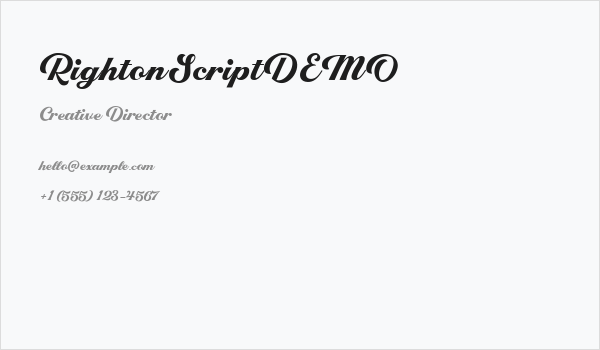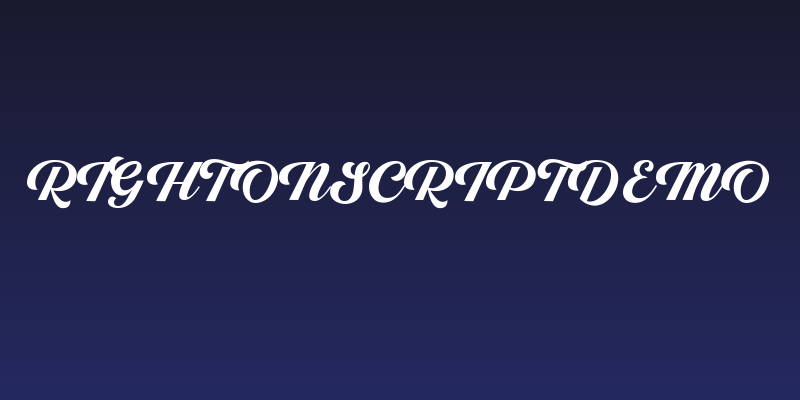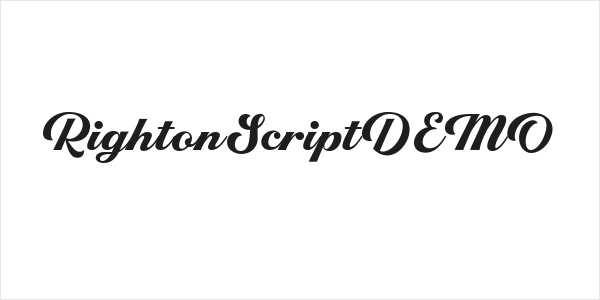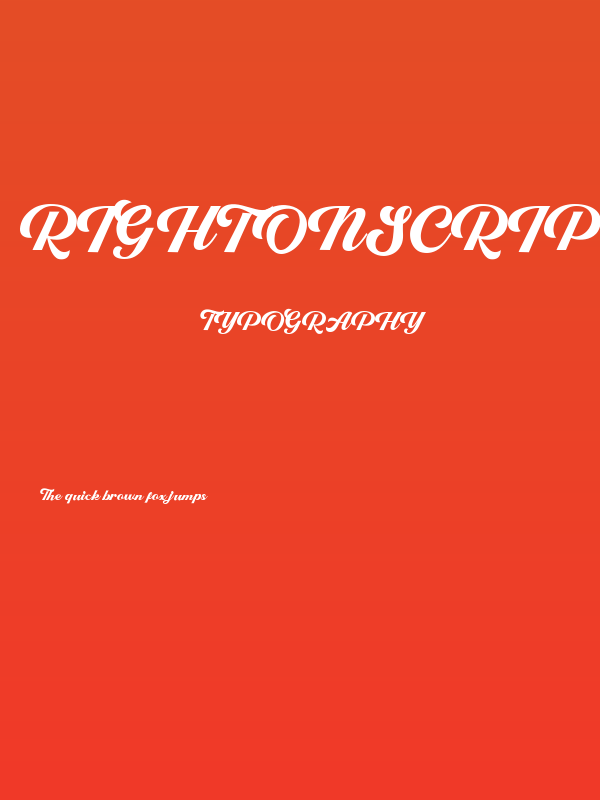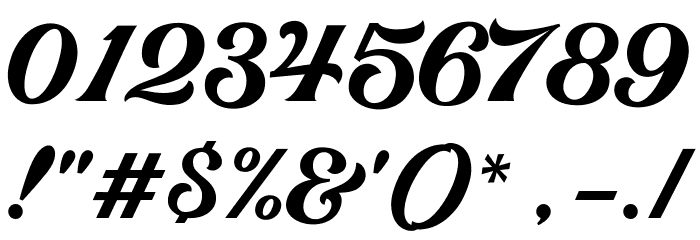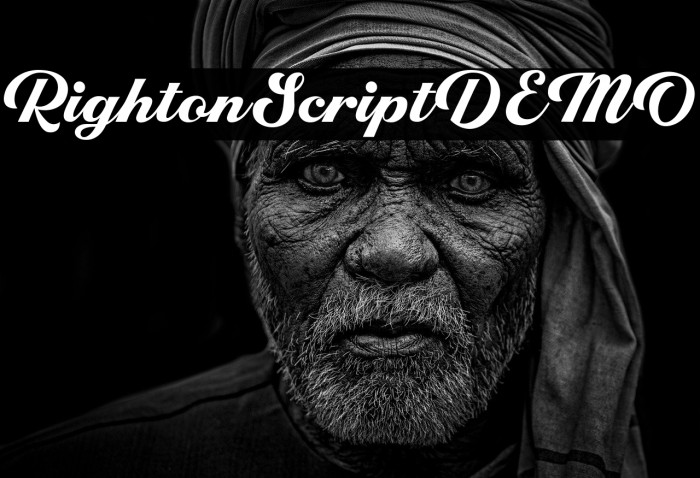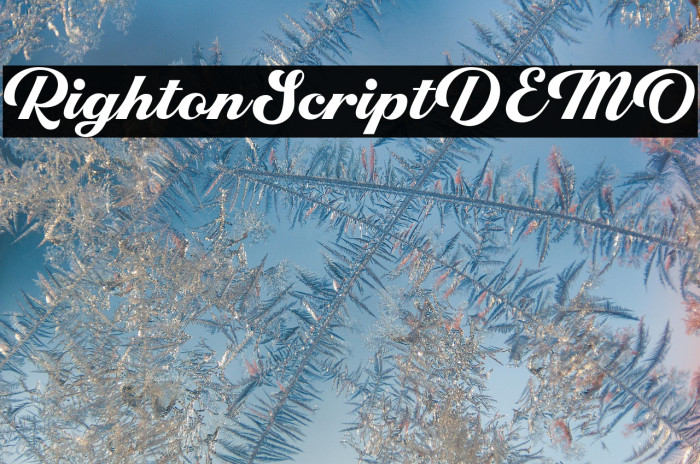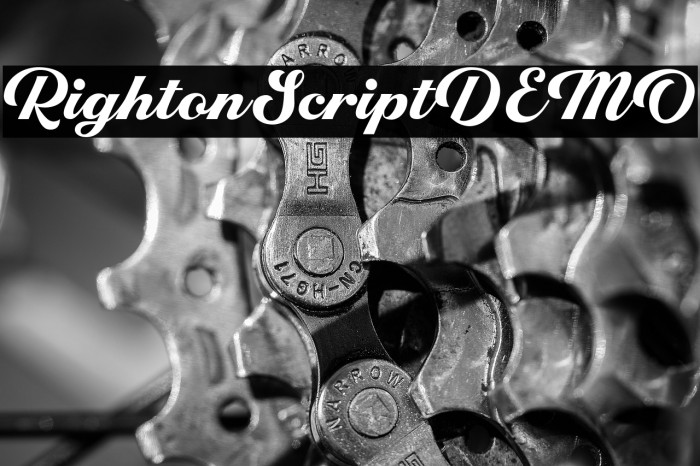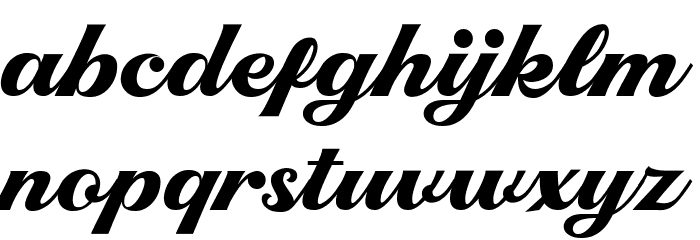
RightonScriptDEMO Font
RightonScriptDEMO Description
This font exudes a classic and elegant script style, characterized by its flowing and connected letterforms. The uppercase letters are bold and sweeping, with a sense of grandeur and sophistication. The lowercase letters maintain a consistent slant, enhancing the cursive appearance and providing a smooth reading experience. Numbers and special characters are designed to match the overall aesthetic, offering a cohesive look. The font's high contrast in stroke thickness adds to its dramatic flair, making it suitable for formal and decorative applications.
| Proposed Projects | Ideal for wedding invitations, elegant branding, luxury product packaging, and decorative headlines. |